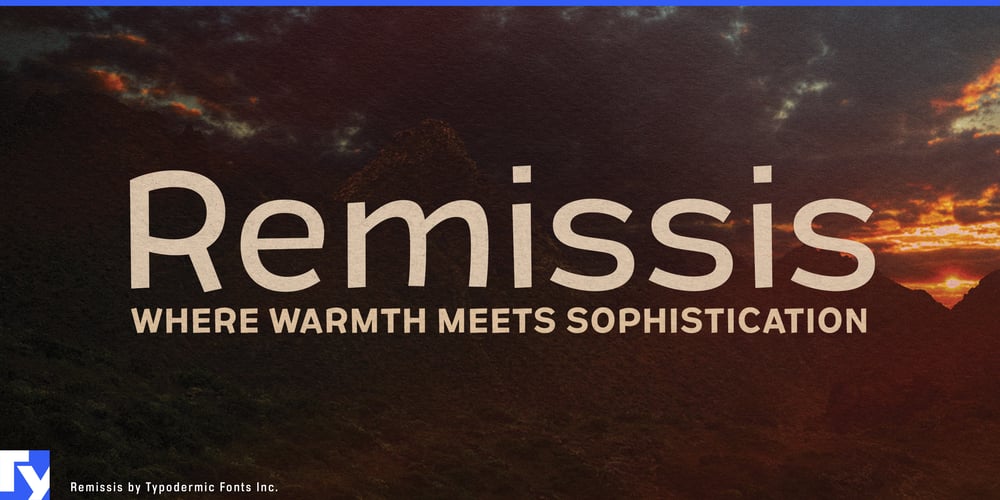
Remissis Font Family was designed by Ray Larabie and published by Typodermic. Remissis contains 14 styles and family package options. Introducing Remissis, a sans-serif typeface that deftly balances organic charm with professional poise. Its off-grid letterforms exude a natural, hand-crafted feel without veering into whimsy—striking that elusive sweet spot between approachability and sophistication.Remissis excels in conveying softness and naturalness while maintaining a refined edge. Delicate horizontal angles add a touch of elegance, making it an ideal choice for projects that demand a polished yet inviting aesthetic. From high-end branding to editorial design, Remissis adapts effortlessly to a wide range of applications. Crafted for optimal performance on high-resolution displays and in print, Remissis offers a suite of thoughtful features. OpenType-capable applications unlock access to unique “lining old-style” numerals, enhancing typographic flexibility. The typeface also boasts an extensive array of mathematical and monetary symbols, as well as diacritical marks, ensuring versatility across diverse design challenges.With seven meticulously crafted weights and accompanying italics, Remissis provides a comprehensive toolkit for designers. Its expansive character set supports an impressive linguistic range, encompassing most Latin-based European languages, Vietnamese, Greek, and a broad selection of Cyrillic-based writing systems. From the flowing scripts of Western Europe to the intricate accents of Vietnam, Remissis speaks your language—quite literally.Elevate your typography game with Remissis. Its unique blend of casual warmth and refined structure sets it apart in a crowded sans-serif landscape. Don’t settle for typefaces that force you to choose between personality and professionalism—with Remissis, you can have both. Make a statement, craft a narrative, or build a brand—Remissis is the versatile partner your next project deserves.